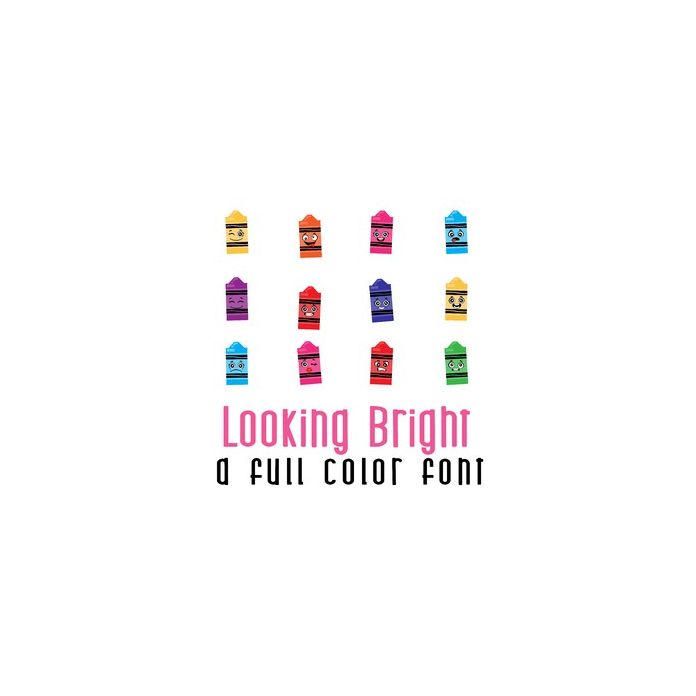
This adorable full-color doodlebat font features 26 adorable emoticon crayons. Perfect for cards, crafts, gifts, decor, scrapbook pages, planner stickers, and more!